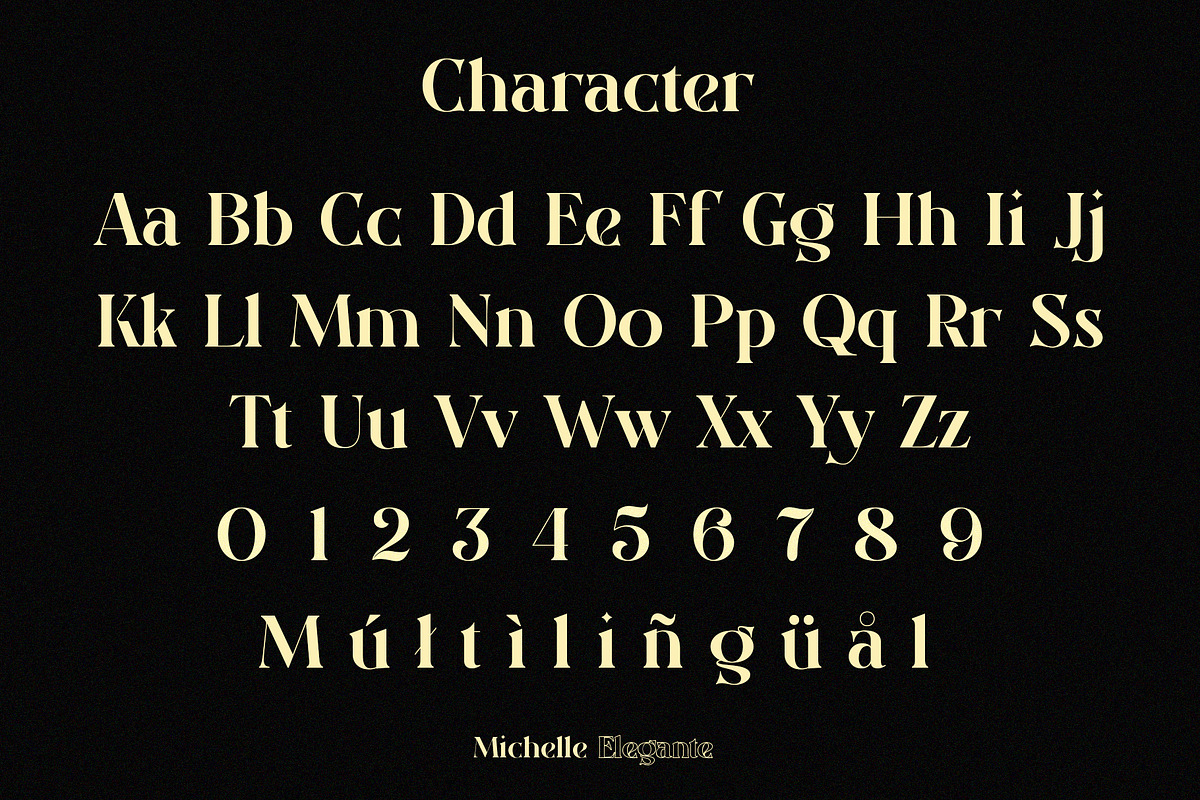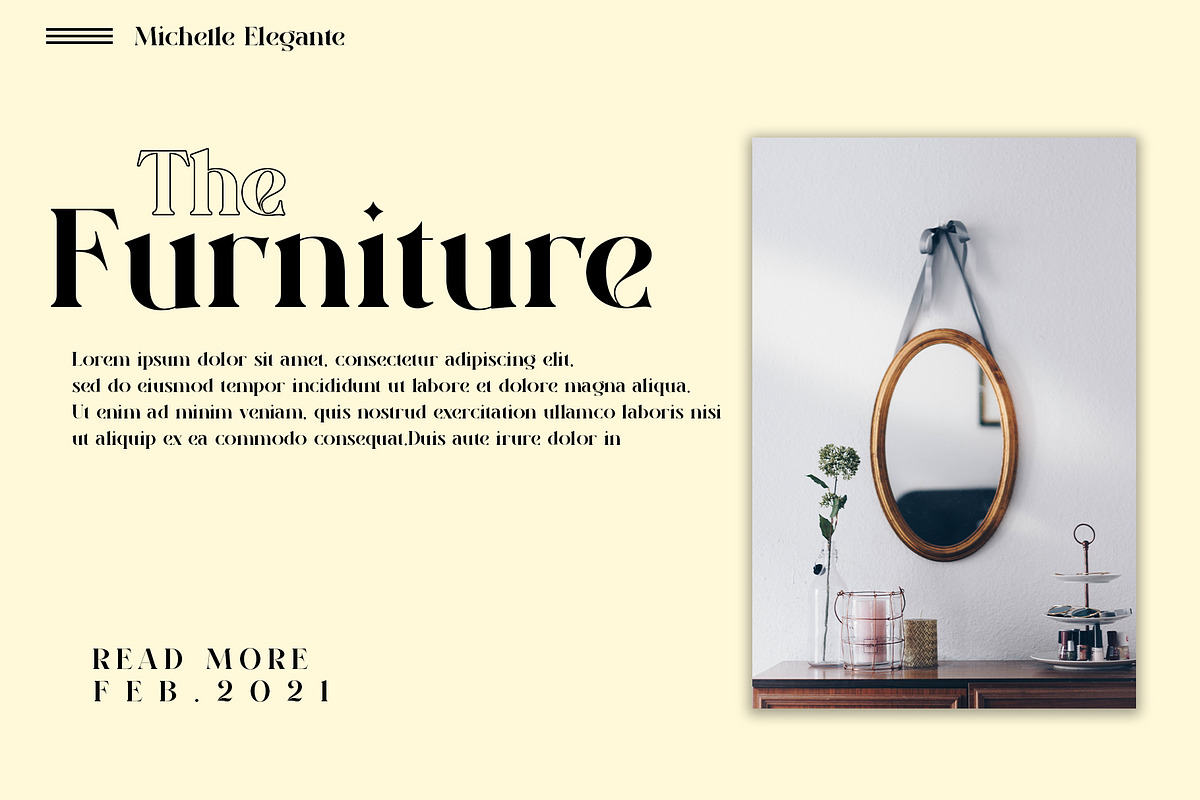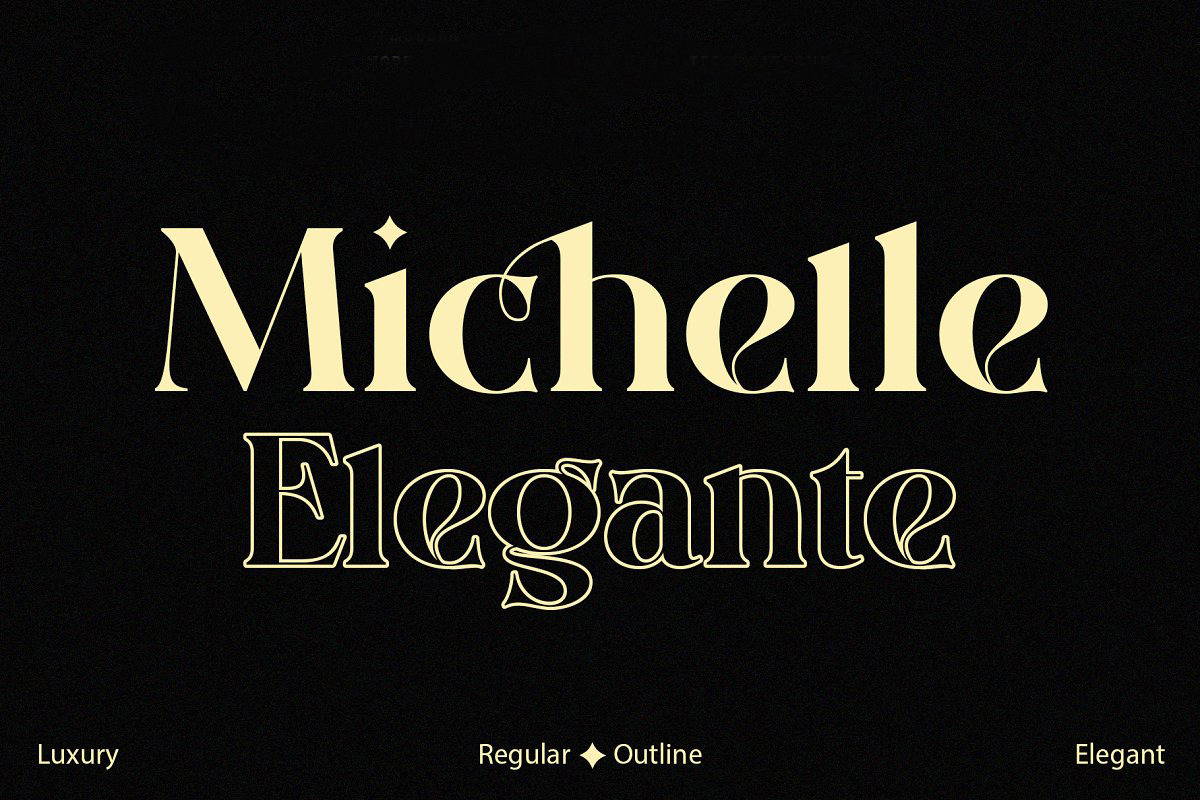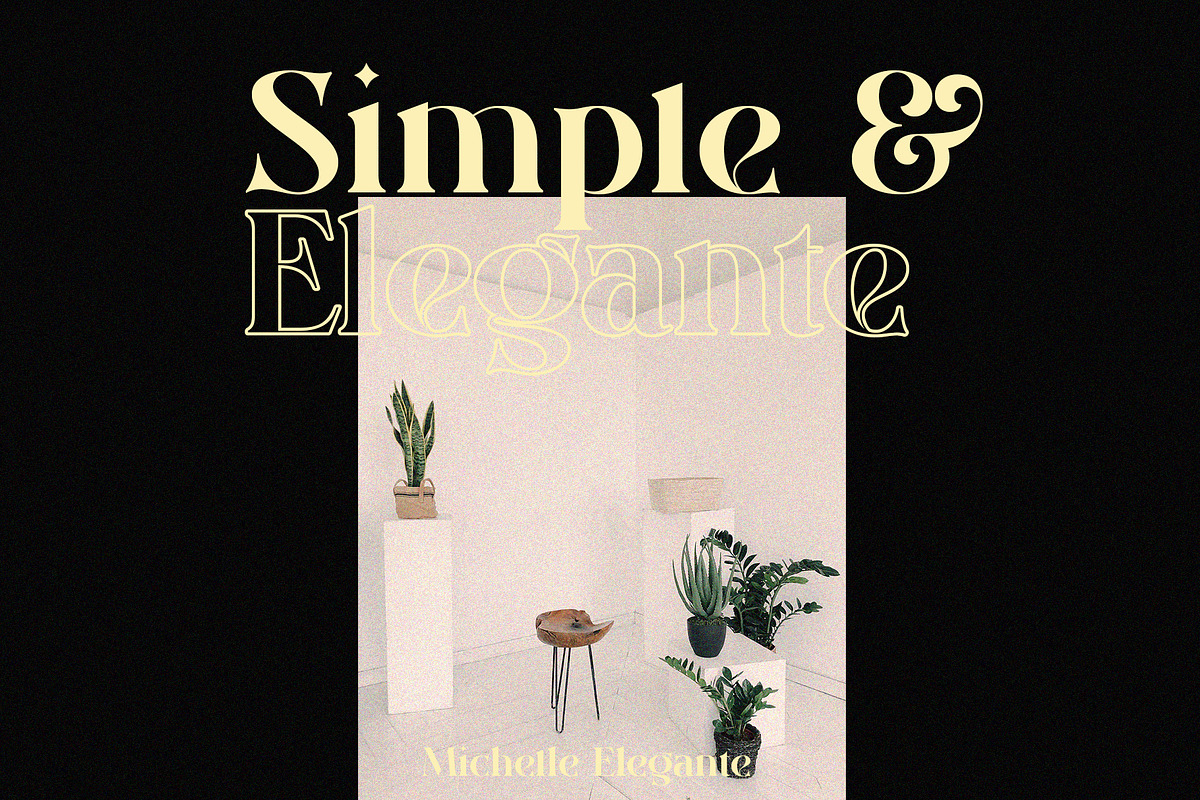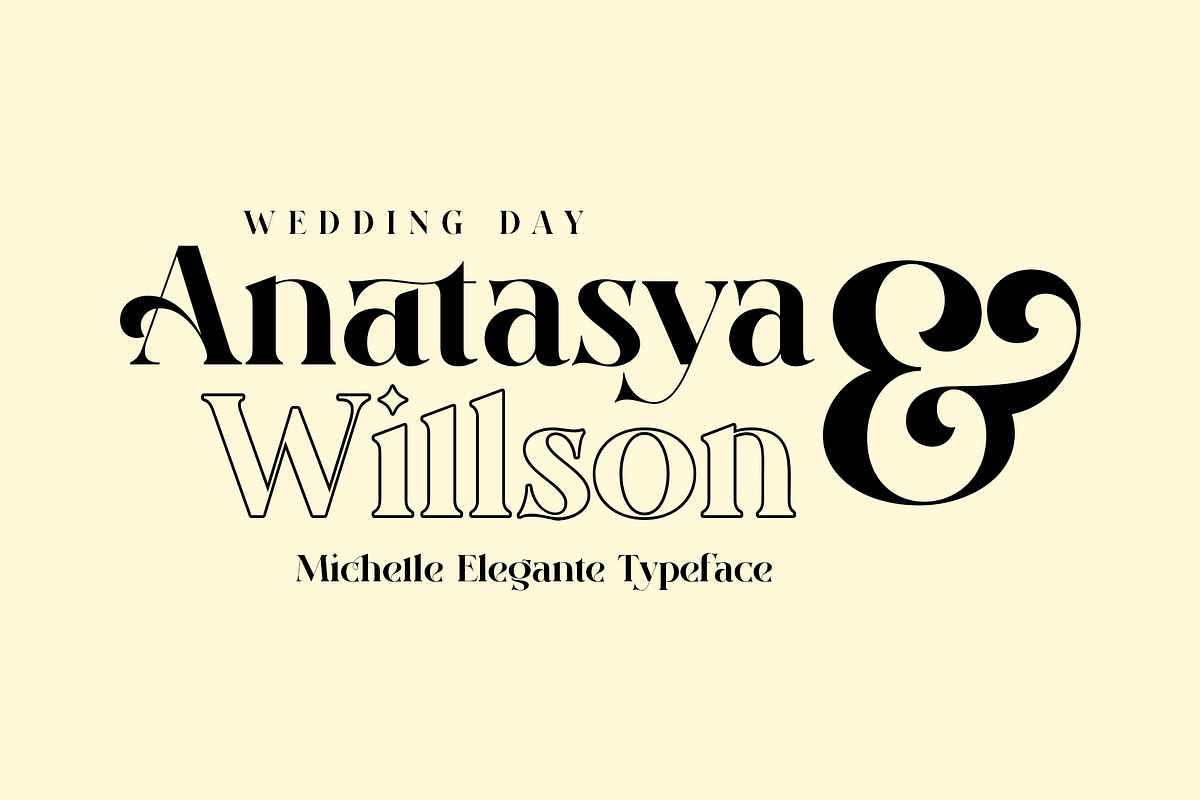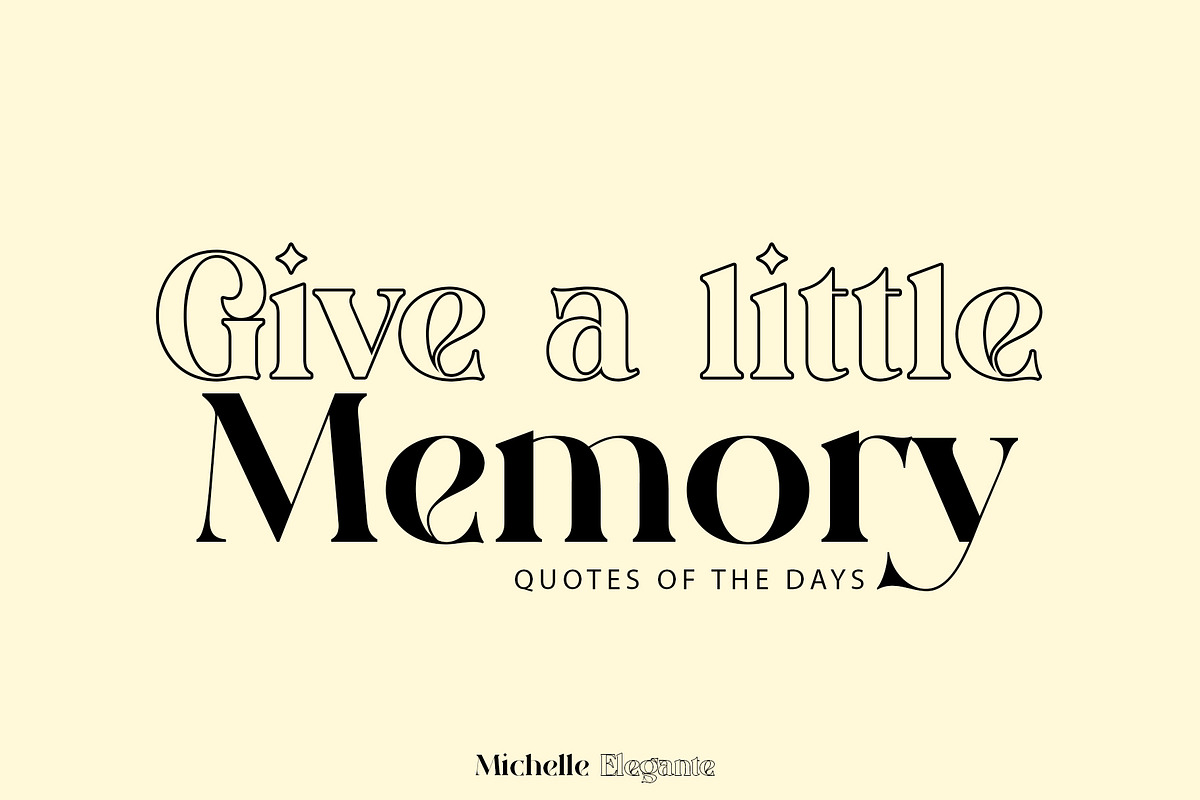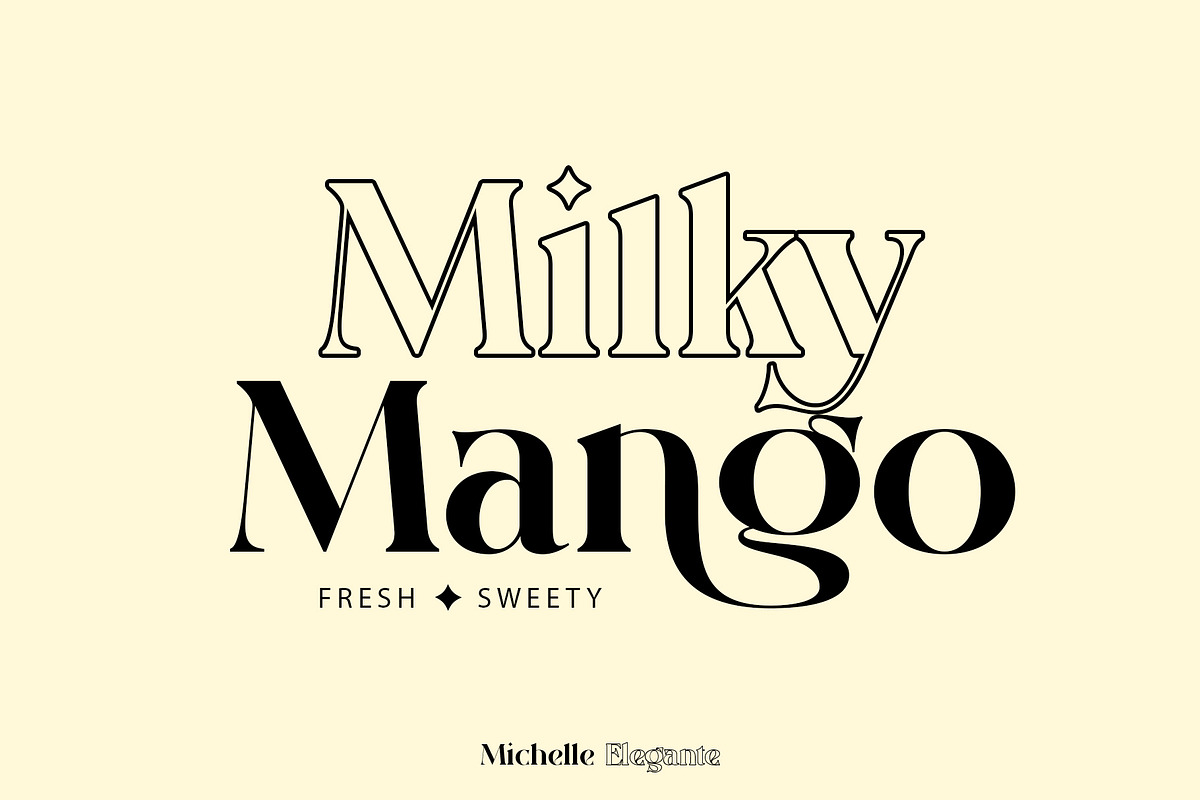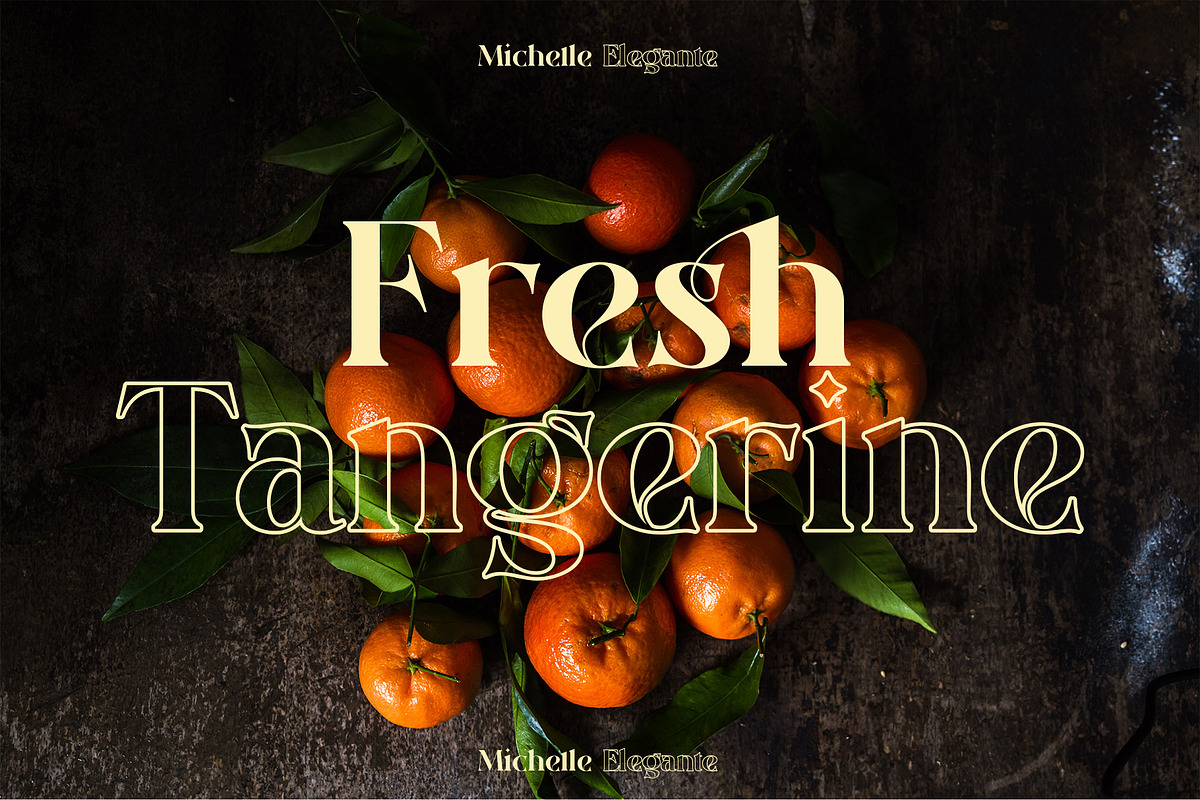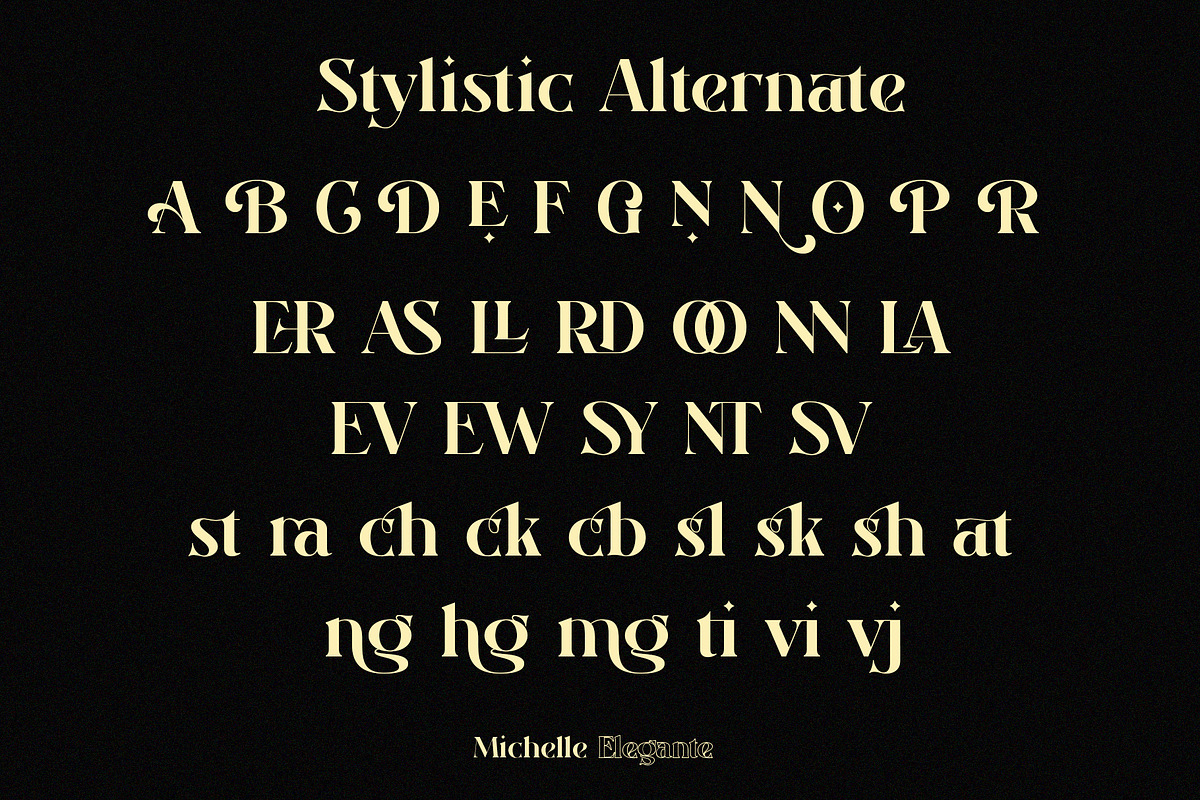
Michelle Elegante
Hello everyone, This time we want to introduce our latest product, "Michelle eleganter" a font designed with a modern style,. of course at an affordable price. This font will add nuance to any of your work.
FEATURE
- Numeral
- Functional
- stylistic
- ligature